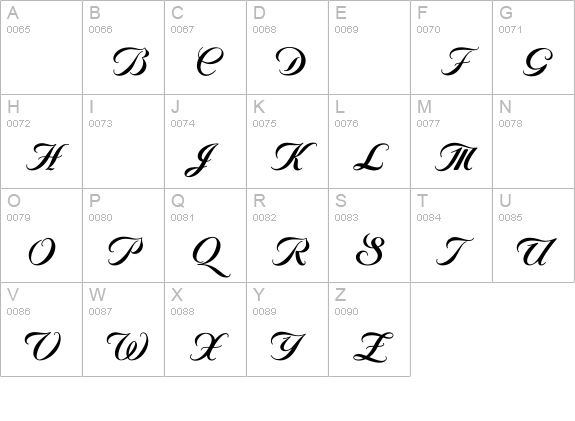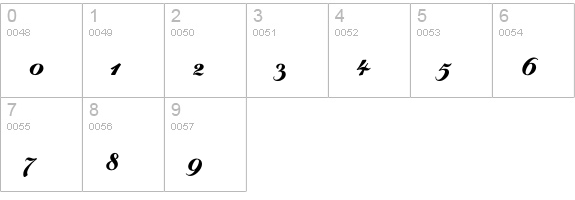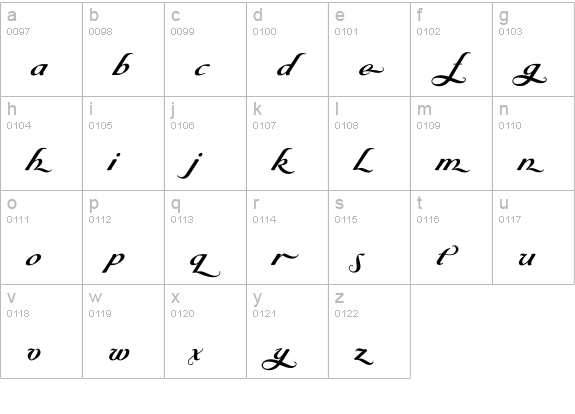
The ByronBoldSwash font exudes elegance, sophistication, and a touch of vintage charm. Its bold and swirly design adds a sense of drama and flair to any text it graces. Perfect for invitations, headlines, and branding projects, this font is sure to make a statement. Best of all, ByronBoldSwash is completely free to download at FontsMarket.com. Embrace the beauty and versatility of this stunning font without any cost. Let your creativity flow with ByronBoldSwash and elevate your designs to new heights.